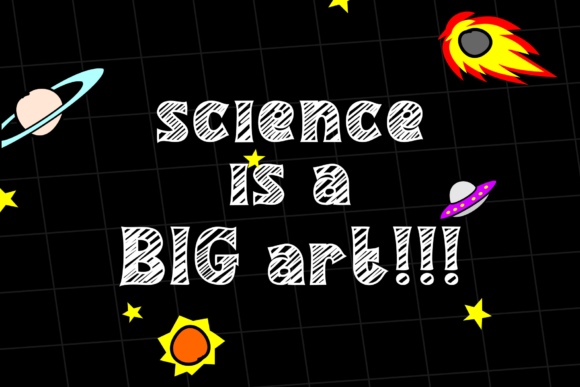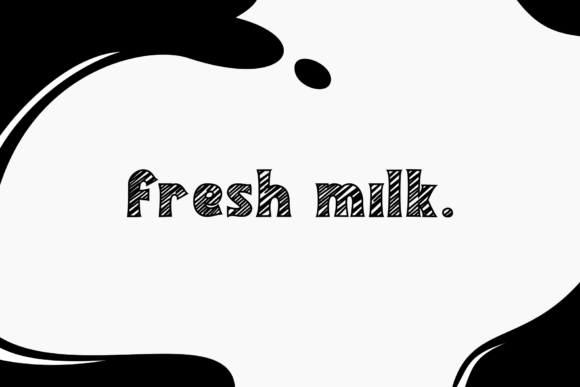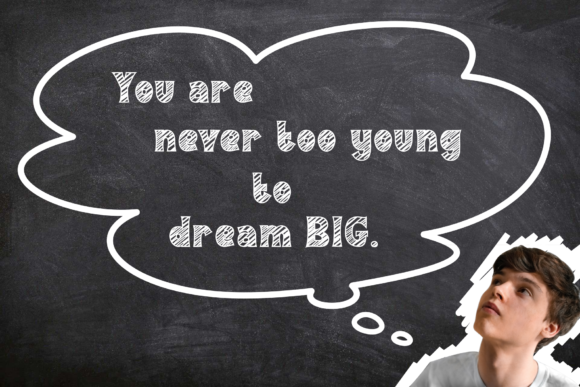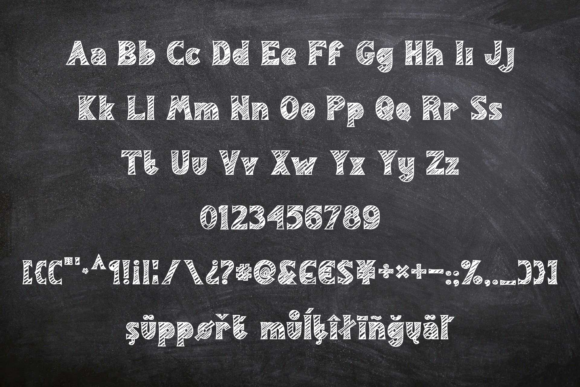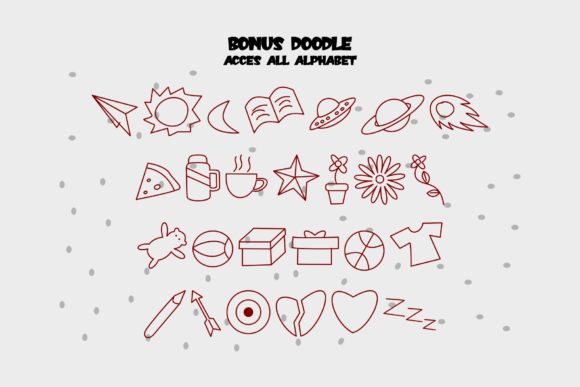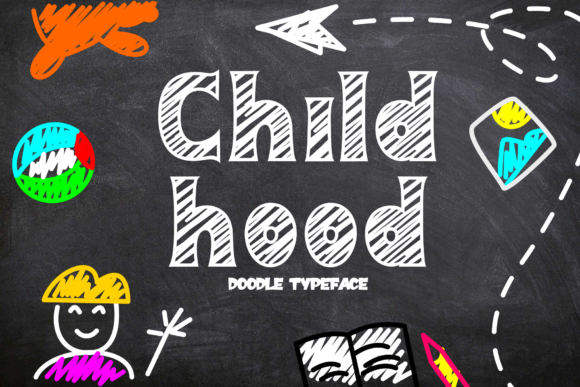
Introducing Child Hood Font: The Perfect Addition to Your Design Arsenal
Are you a designer, crafter, or educator looking for a font that can add a touch of whimsy and fun to your projects? Look no further than Child Hood Font, a delightful duo font that combines a display font with dingbats. This charming font is perfect for creating chalkboard quotes, teaching materials, and other designs that require a personal and realistic feel.
What Makes Child Hood Font So Special?
Child Hood Font is a unique and versatile font that offers a range of exciting features. Here are just a few reasons why it’s a must-have for designers and crafters:
• Authentic Look and Feel: Child Hood Font has an authentic, hand-drawn look that will add a personal touch to your designs. Its chalkboard-inspired aesthetic makes it perfect for creating quotes, posters, and other materials that require a playful and educational feel.
• Duo Font: Child Hood Font comes with two fonts in one: a display font and a dingbats font. The display font is perfect for headlines and titles, while the dingbats font offers a range of fun and playful symbols to enhance your designs.
• High-Quality Design: Child Hood Font is designed with high-quality craftsmanship in mind. The font is clear, legible, and perfect for use in a variety of design applications.
Child Hood Font is a versatile font that can be used in a range of design applications, from education to crafting. Here are just a few ways you can use Child Hood Font in your designs:
• Chalkboard Quotes: Use Child Hood Font to create chalkboard quotes that are perfect for social media, blogs, or websites. The font’s chalkboard-inspired aesthetic makes it ideal for creating quotes that look like they were written on a chalkboard.
• Teaching Materials: Child Hood Font is perfect for creating teaching materials, such as worksheets, posters, and lesson plans. The font’s playful and educational feel makes it ideal for use in educational settings.
• Crafting Projects: Use Child Hood Font to add a personal touch to your crafting projects, such as scrapbooking, card making, and journaling. The font’s whimsical and playful feel makes it perfect for use in a variety of crafting applications.
Tips for Using Child Hood Font
Here are a few tips for getting the most out of Child Hood Font:
• Experiment with Font Sizes: Child Hood Font looks great in a range of font sizes, from large headlines to smaller body text. Experiment with different font sizes to find the perfect look for your design.
• Pair with Other Fonts: Child Hood Font pairs well with a range of other fonts, from serif to sans serif. Experiment with different font combinations to find the perfect look for your design.
• Use the Dingbats Font: The dingbats font that comes with Child Hood Font is a great way to add visual interest to your designs. Use the dingbats font to create fun and playful designs that are sure to stand out.
Child Hood Font is a fun and versatile font that is perfect for designers, crafters, and educators. Its authentic look and feel, duo font design, and ease of use make it a must-have for anyone looking to add a personal touch to their designs. Whether you’re creating chalkboard quotes, teaching materials, or crafting projects, Child Hood Font is the perfect addition to your design arsenal.